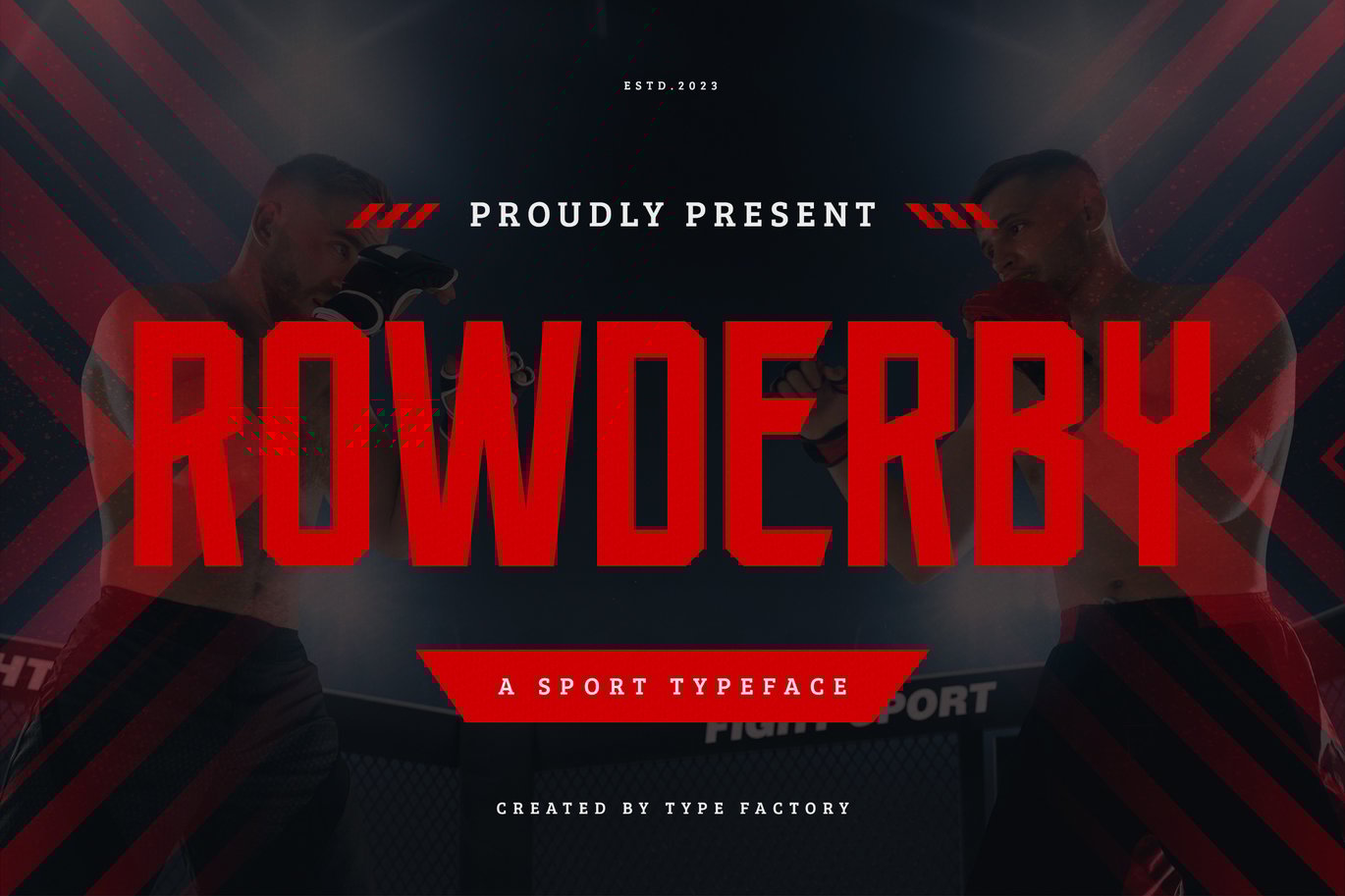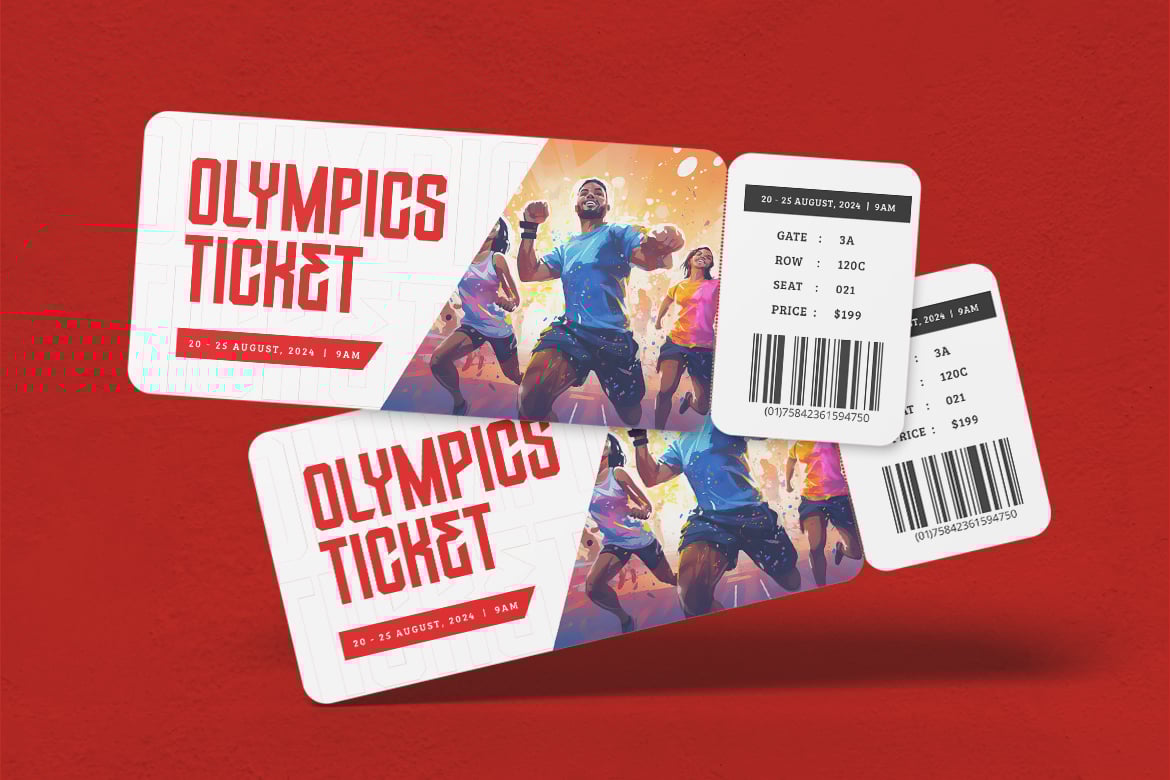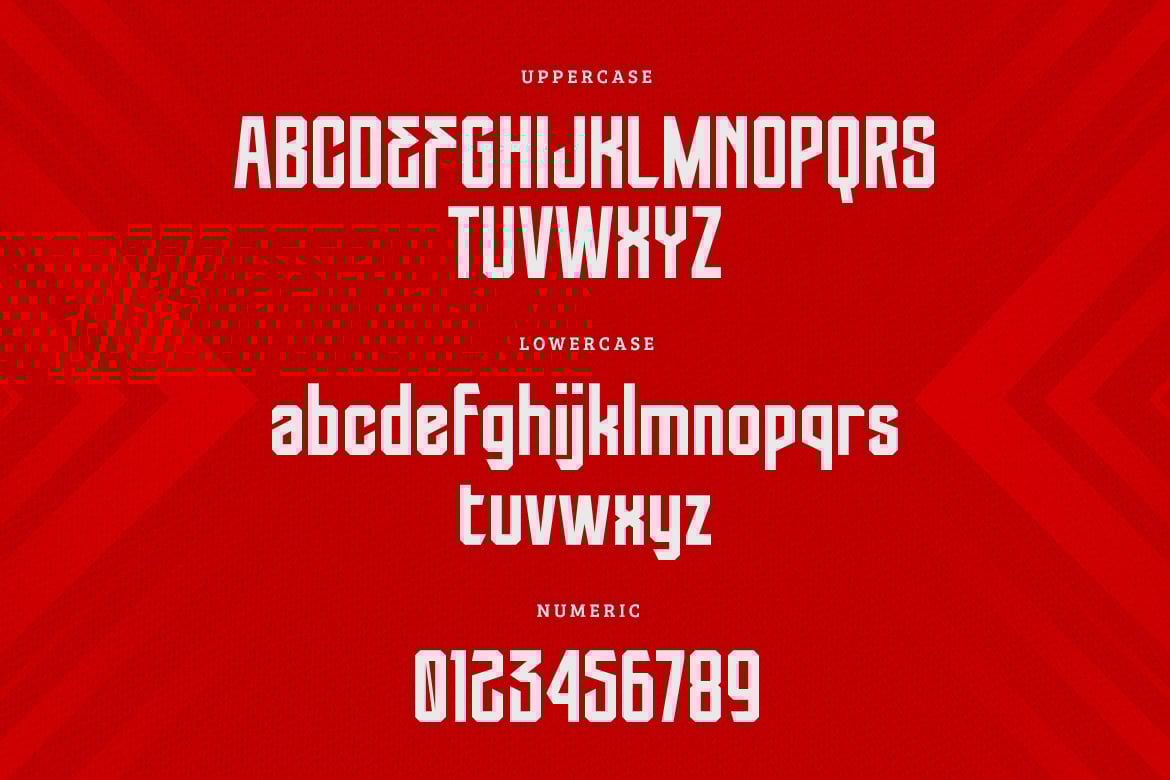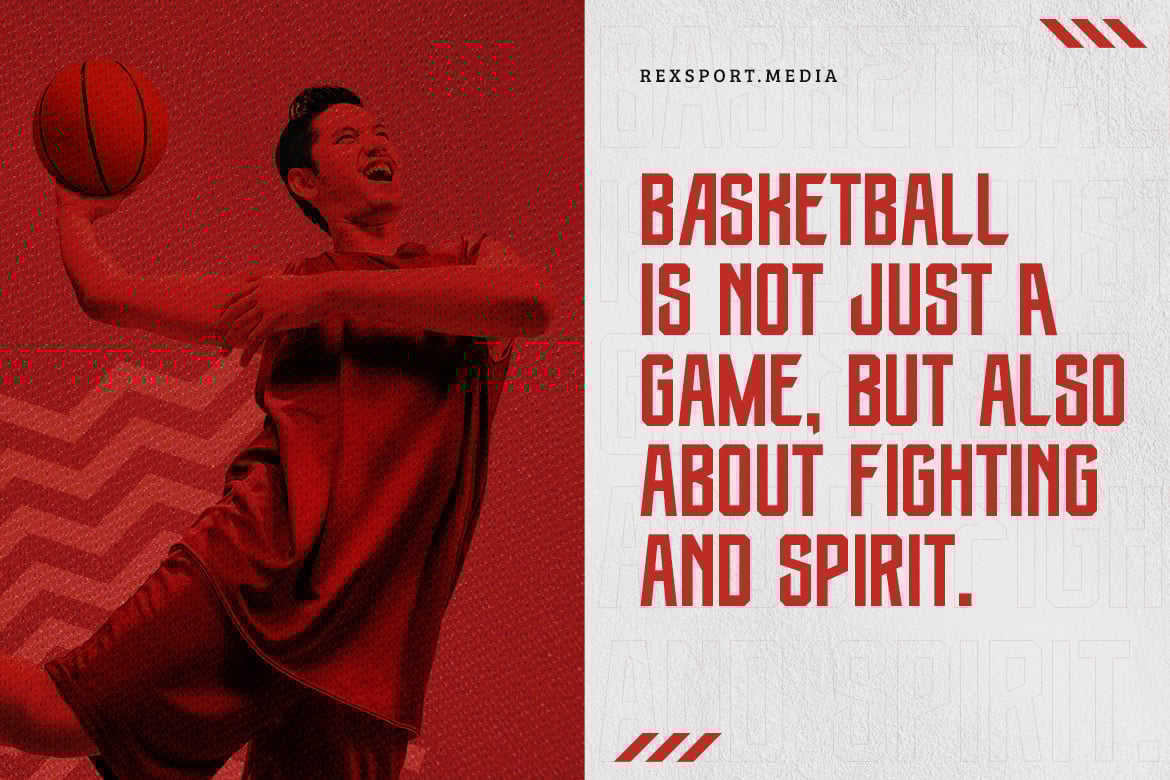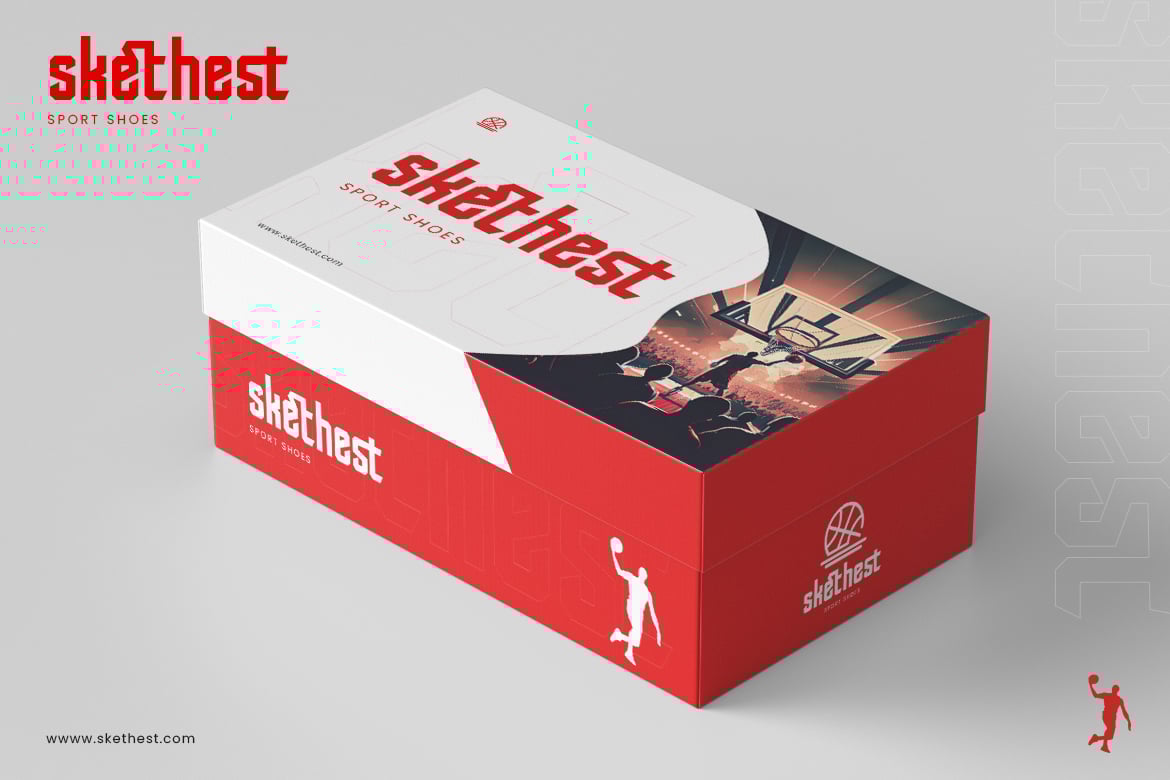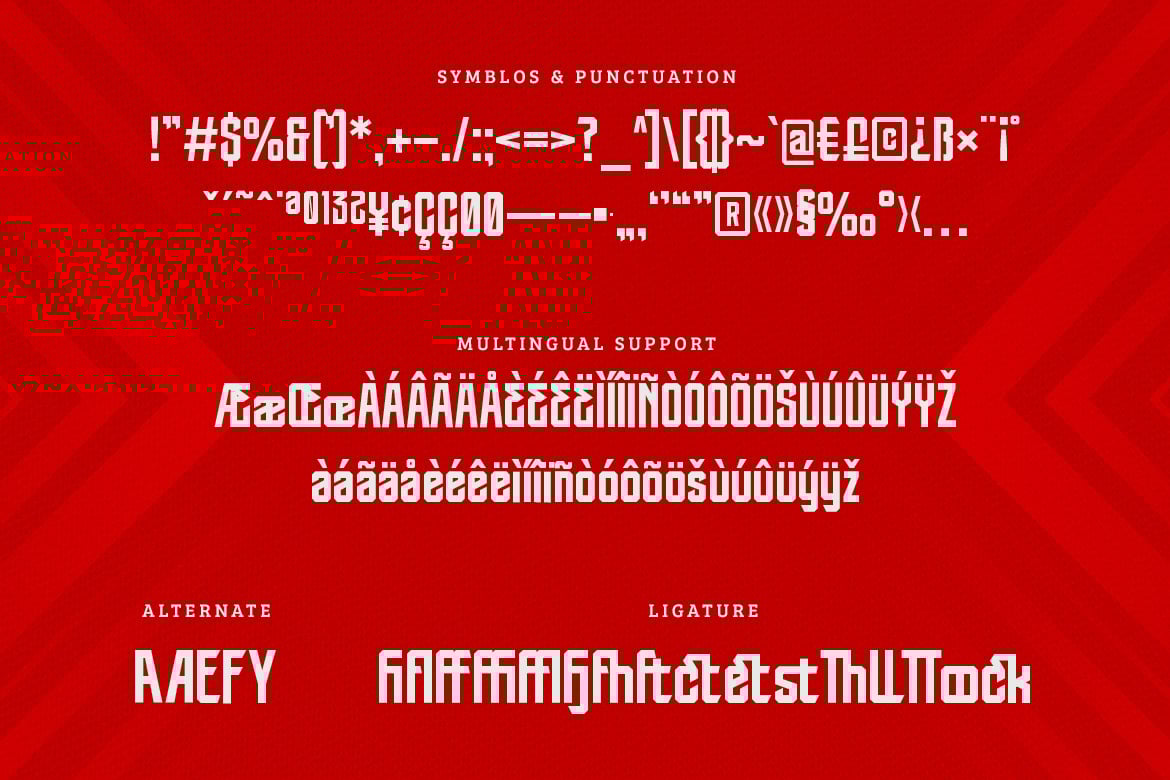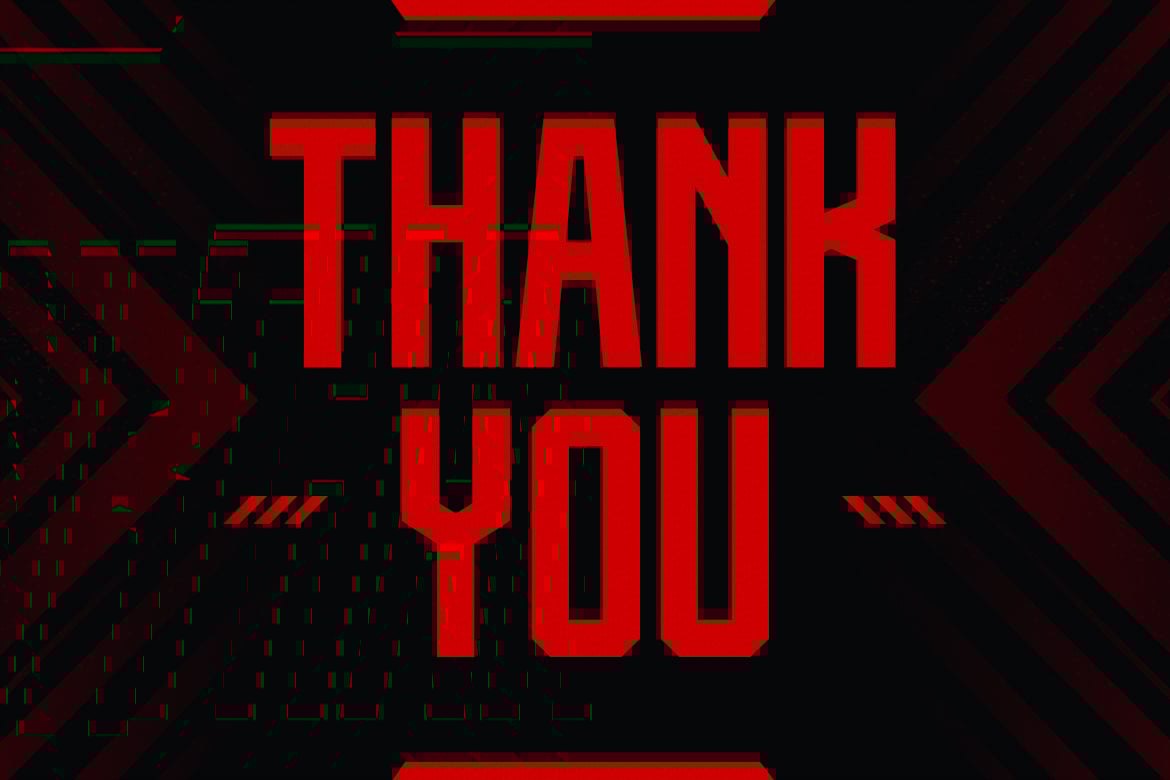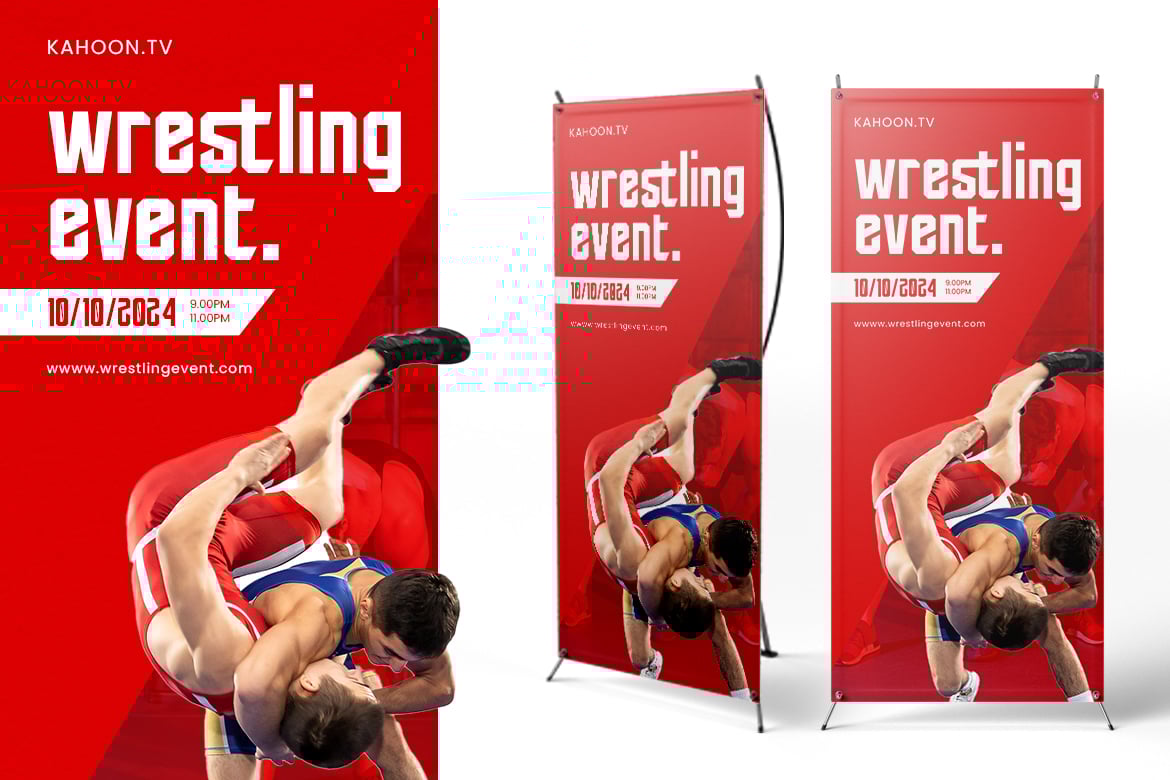
Rowderby – Sport Typeface
Rowderby is a dynamic sport typeface that embodies the energy and spirit of athletic competition. With its bold, angular letterforms and sharp lines, Rowderby is perfect for jerseys, team branding, posters, and promotional materials that aim to inspire excitement and teamwork. This versatile typeface captures the essence of movement and action, making it an ideal choice for any sports-related design. Whether you’re creating merchandise or advertising for an event, Rowderby delivers a powerful visual impact that resonates with athletes and fans alike.